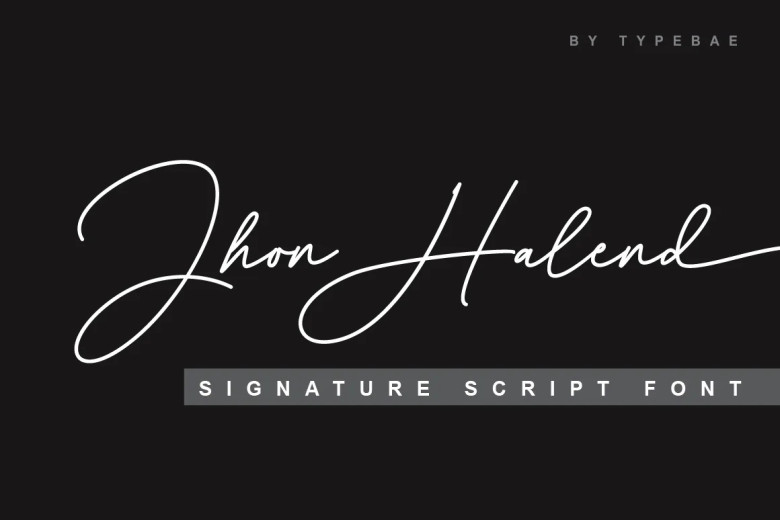
Jhon Halend Font
Jhon Halend will make an ideal trademark font with its smooth and elegant flow that features graceful tails at both the beginning and end of each letter. Furthermore, its binding feature enables certain letter combinations to flow more naturally for a more authentic appearance, making this font suitable for use with tasks that require genuine handwriting.
To take full advantage of its beginning and ending swashes (tails), no separate software program that supports opentype is necessary – making Jhon Halend truly effortless in use!
Jhon Halend Signature Font